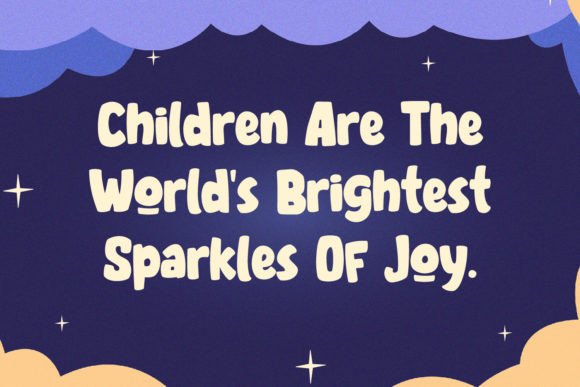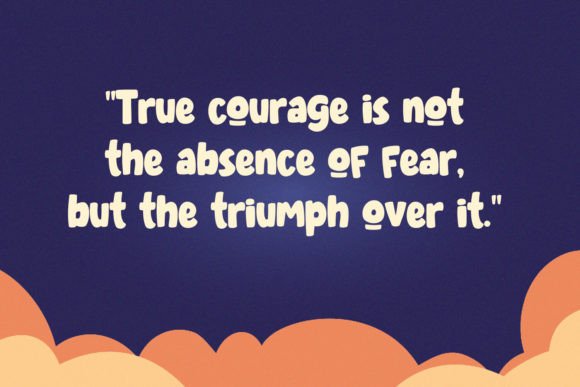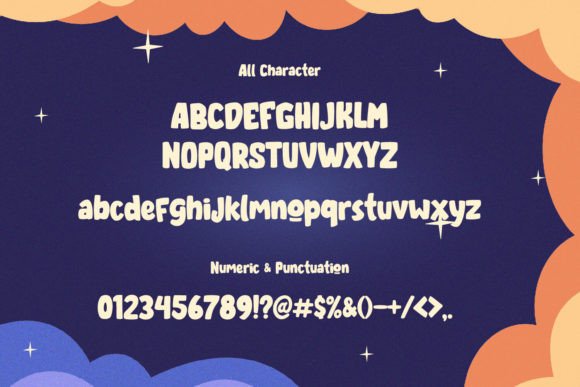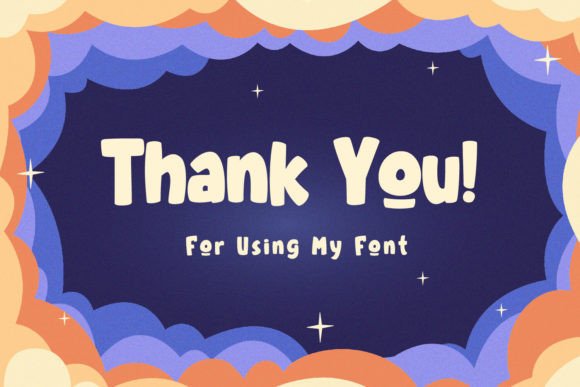
Do you remember the feeling of doodling in your notebook as a child, letting your imagination run wild with every scribble and curve? For designers, that same sense of freedom and creativity is what makes a font truly special. Enter Meliosa Font, a delightful display font that captures the essence of whimsy and charm in every letter.
Whether you’re working on a children’s book, educational materials, or lively invitations, Meliosa Font is the perfect design resource to bring a touch of fun to your project. With its playful strokes and dynamic curves, this font is sure to add a burst of creativity to your designs. And the best part? It’s available for free download, making it an invaluable asset for designers on a budget.
- Features a clean and modern design, perfect for use in logos, branding materials, and other creative projects.
As a designer, I’m always on the lookout for high-quality design resources to elevate my creative projects. Recently, I stumbled upon the Meliosa Font, and I’m excited to share my honest review with you.
First impressions count, and the Meliosa Font does not disappoint. The font’s elegant and modern design makes it a perfect addition to any project. I particularly appreciate the transparent background option, which allows for seamless integration with any design element.
- ✨ High-quality design: The Meliosa Font is meticulously crafted, making it a valuable addition to any design library.
- ✨ Versatile: This font can be used for a wide range of creative projects, from branding and marketing materials to editorial content.
- ⚠️ Limited font sizes: While the font is versatile, it’s not ideal for projects that require extremely large or small font sizes.
- ⚠️ Not ideal for complex typography: The Meliosa Font is best suited for simple, elegant typography, rather than complex or ornate designs.
Overall, I’m impressed with the Meliosa Font’s quality and versatility. While it may have some limitations, it’s an excellent addition to any designer’s toolkit, and I’d highly recommend it for any creative project.
Use Meliosa Font for high-quality design projects, such as posters, flyers, and brochures. Take advantage of the font’s transparent background feature to create visually appealing designs. You can also use Meliosa Font as a design resource for your creative project.
Meliosa Font is ideal for a variety of design projects, including branding, marketing materials, and presentations. Its high-quality design and transparent background feature make it a versatile design resource for any creative project.